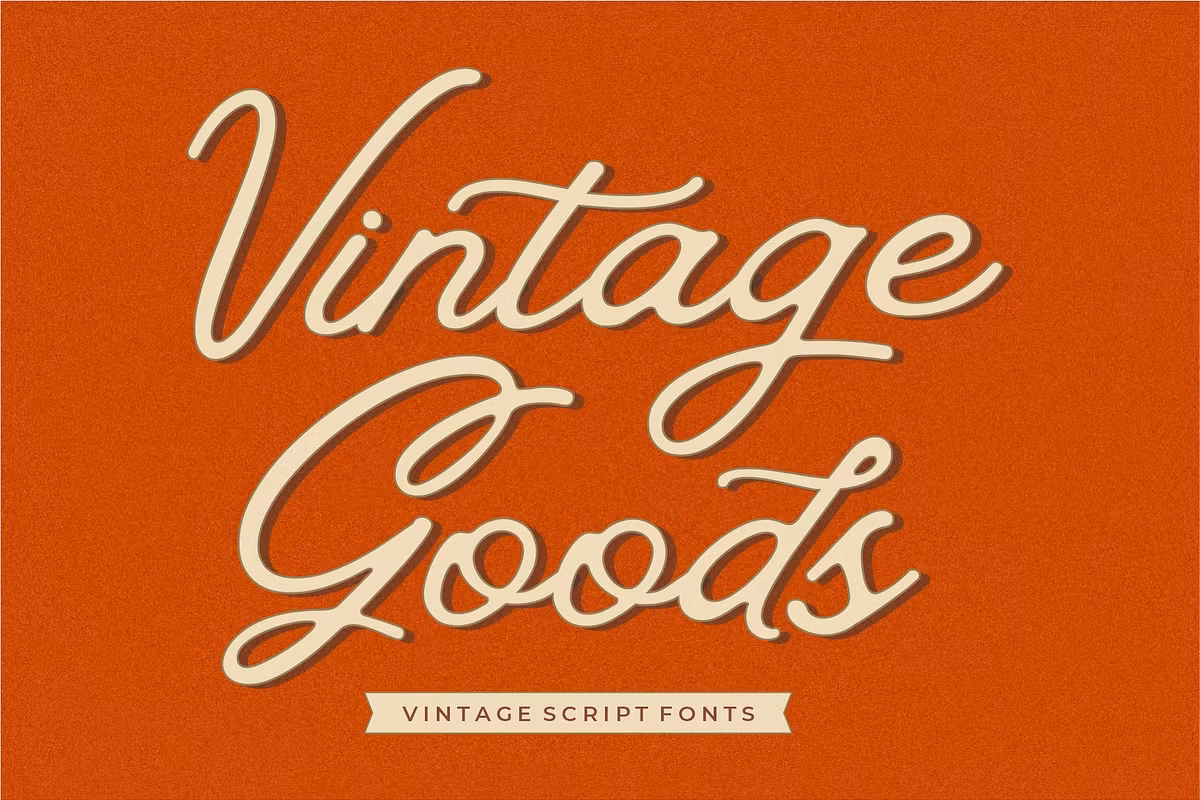
Vintage Goods Script Free Download
Bring nostalgic charm to your designs with Vintage Goods Script Font Free Download, a retro-inspired typeface full of personality and handcrafted style. You need to purchase this font for commercial use. However, you can test it in personal or demo projects using Vintage Goods Script Font Free Download. With its flowing script, textured details, and vintage flair, this font is perfect for logos, packaging, apparel, signage, and branding with a timeless touch. Designers love its authentic, old-school vibe that adds warmth and character. Download Vintage Goods Script Font Free Download today and infuse your projects with classic appeal and creative flair.